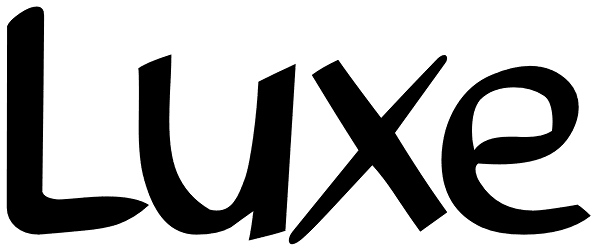
Luxe
Luxe is a casual, script style font designed to provide hep and playful results. Extended character set includes foreign language support for many countries.
Luxe Font